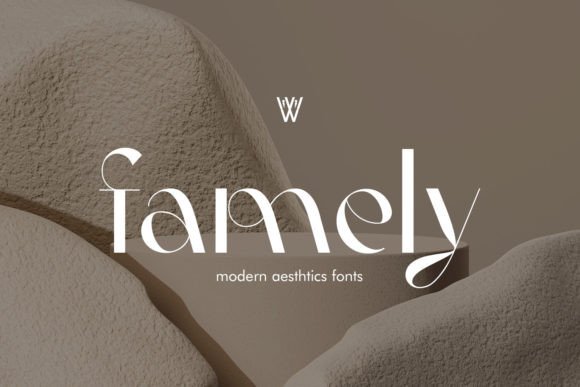
Looking to add a touch of elegance and glamour to your next project? Look no further than Famely Font, a stunning sans serif typeface created by Whymore. With its graceful curves and smooth serifs, Famely Font showcases beauty in a minimalistic form.
Whether you're working on branding, invitations, or editorial design, Famely Font is sure to captivate your audience. Its timeless beauty and sophistication make it the perfect choice for any occasion. Imagine the impact it will have on your wedding videos, elevating them to a whole new level of elegance.
One of the most remarkable features of Famely Font is its versatility. It can be used for both headings and body text, allowing you to maintain consistency throughout your design. Its legibility ensures that your message will be conveyed clearly, making it a reliable choice for any communication.
Don't settle for ordinary fonts when you can elevate your projects with Famely Font. Let its beauty and sophistication shine through, leaving a lasting impression on your audience. Whether you're designing wedding invitations or creating stunning visuals, Famely Font is the key to unlocking your creative potential.